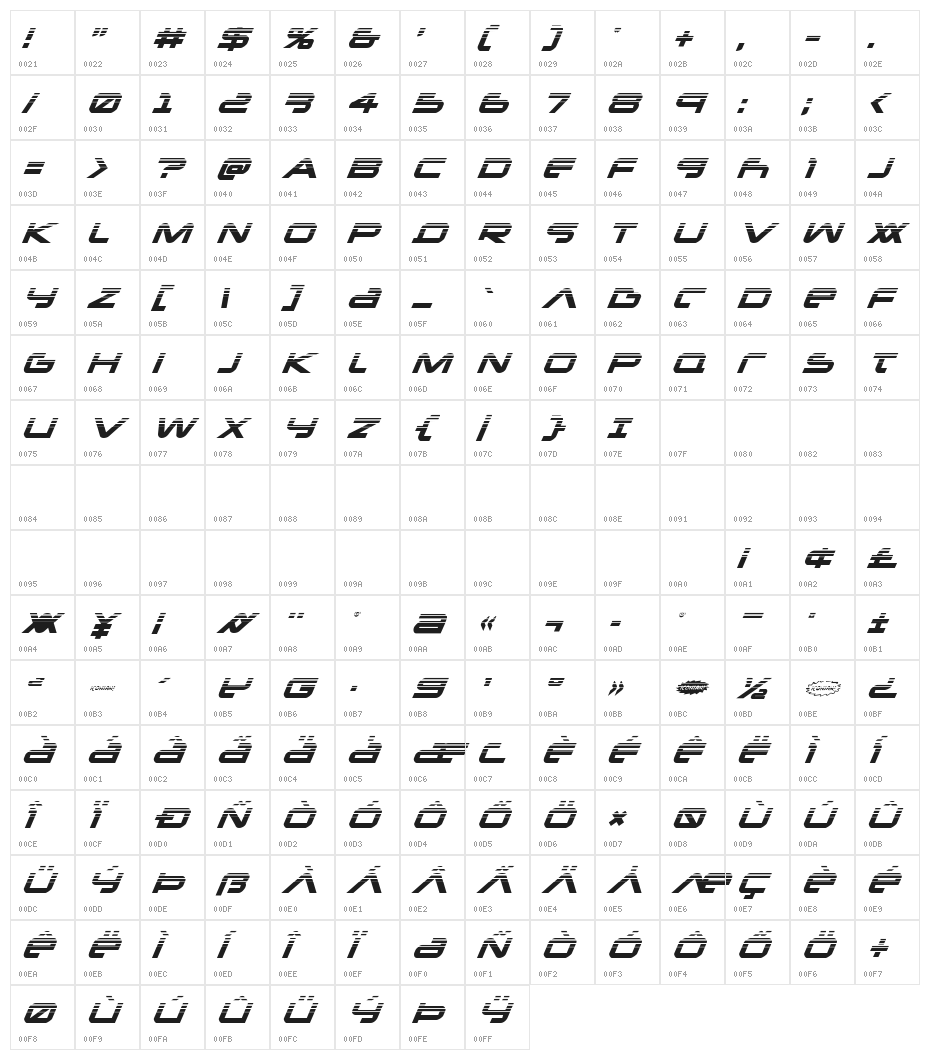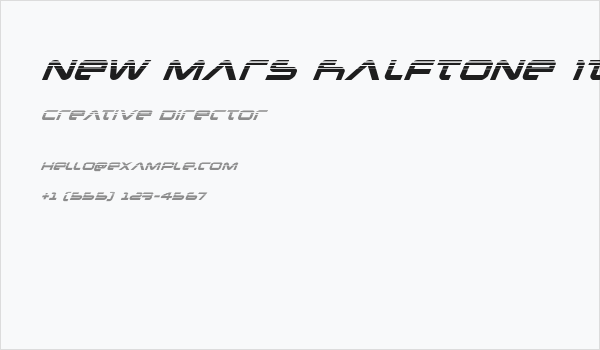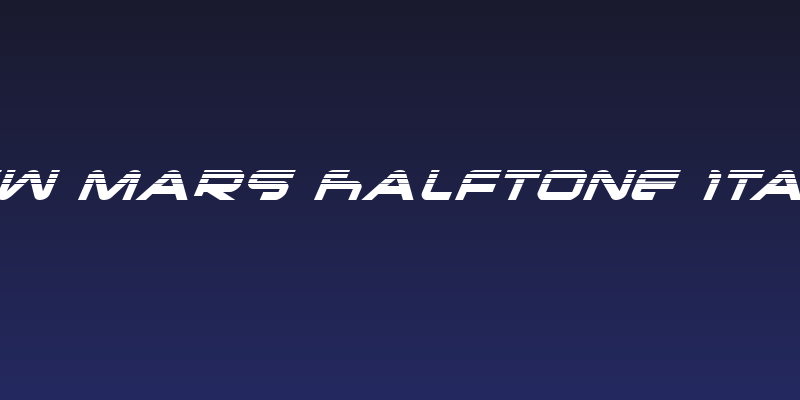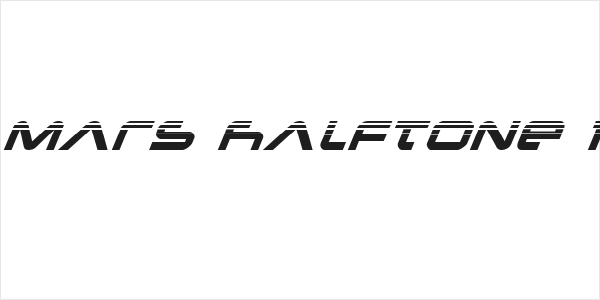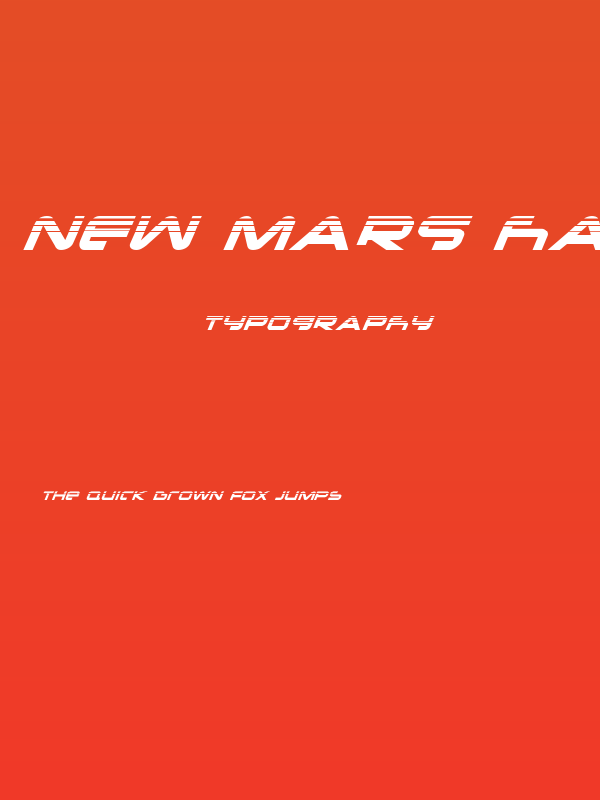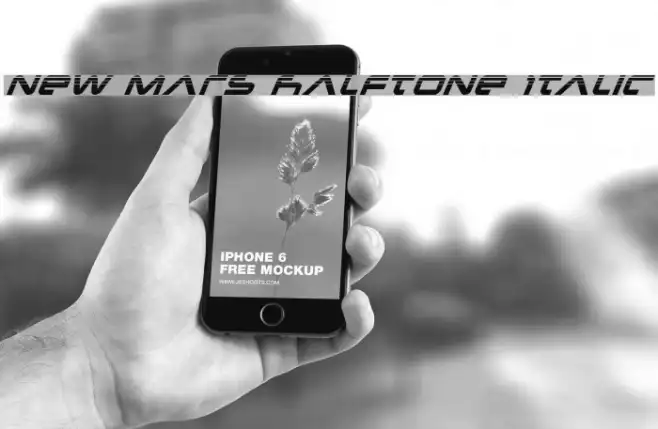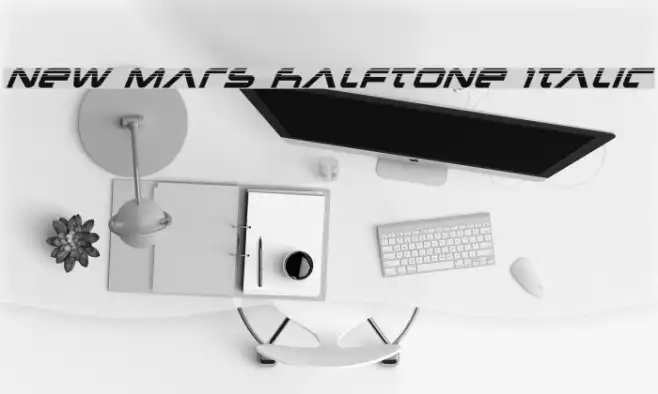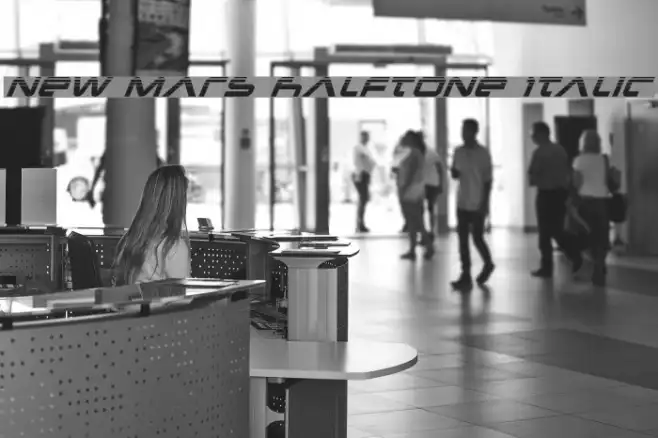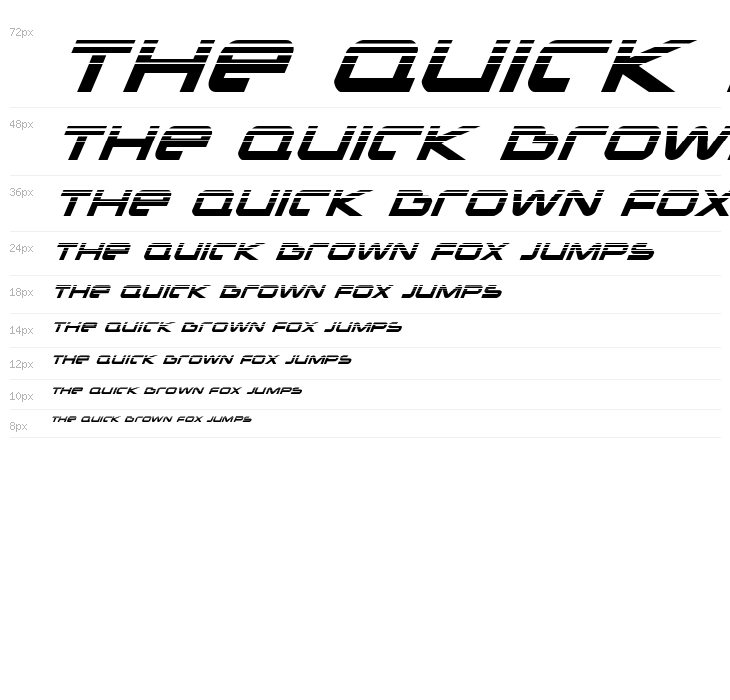
New Mars Halftone Italic Font
New Mars Halftone Italic Description
This font features a futuristic and dynamic design, characterized by its italicized and halftone style. The letters are slanted, giving a sense of motion and speed, while the halftone effect adds a unique texture and depth to each character. The uppercase and lowercase letters maintain a consistent style, with sharp angles and clean lines. The numbers and special characters are designed to match the overall aesthetic, making this font suitable for projects that require a modern and edgy look.
| Proposed Projects | Ideal for sci-fi themed designs, technology branding, video game titles, and modern advertising. |